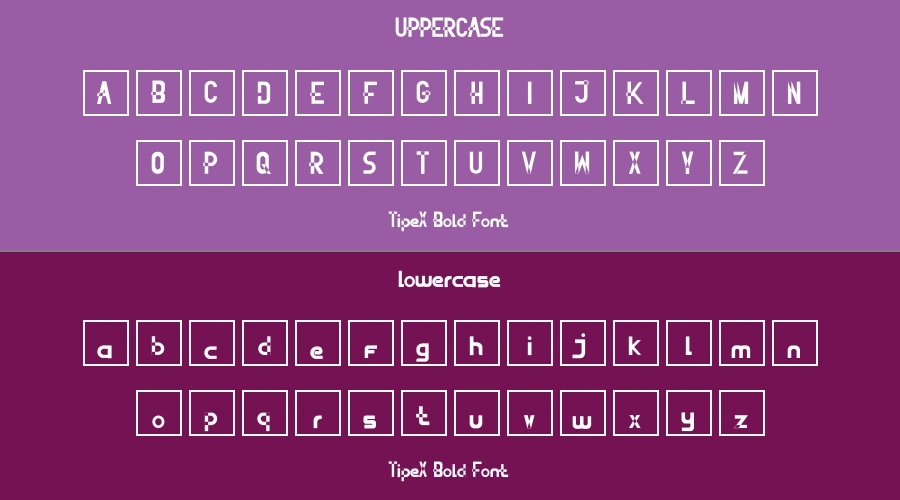
About TipeX Bold Font
Designed with precision, TipeX Bold Font merges contextual swashes with textural richness in every character. This versatility makes it particularly effective for brand identities, where flexibility and artistic merit directly impact communication quality. Each letterform demonstrates meticulous craftsmanship.
Technical excellence shines through elements like flowing forms and beginning forms, enhancing typographic versatility. In product names settings, TipeX Bold Font proves its worth through superior numerical alignment. The thoughtful execution of terminal style and technical innovation ensures professional results.